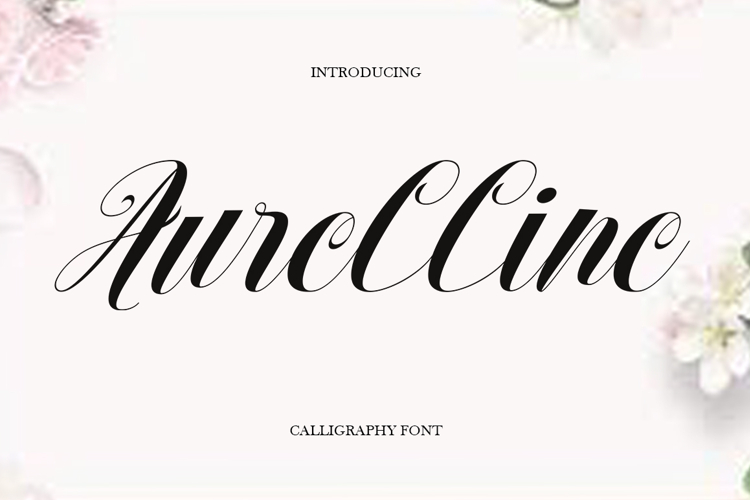
Aurelline
Aurelline is a calligraphy font that comes with a very beautiful character change, a kind of classic decorative copper script with a modern touch, designed in great detail for an elegant style.
Aurelline is attractive because it is smooth, clean, feminine, sensual, glamorous, simple, and very easy to read, due to the many luxurious letter connections. I also offer several alternative styles that are worthy of many letters. The classic style is perfect for applications in various formal forms such as invitations, labels, restaurant menus, logos, fashion, makeup, stationery, novels, magazines, books, greeting/wedding cards, packaging, labels or all types of advertising needs.
Add a touch of modern elegance to your work with Aurelline Font—a bold, stylish script that speaks of beauty and sophistication.
Aurelline has support for various languages. OpenType features with elegant alternative styles and ligatures. The OpenType feature works automatically, but you can access it manually, and for the best results, it takes your creativity in combining these Glyph variations.